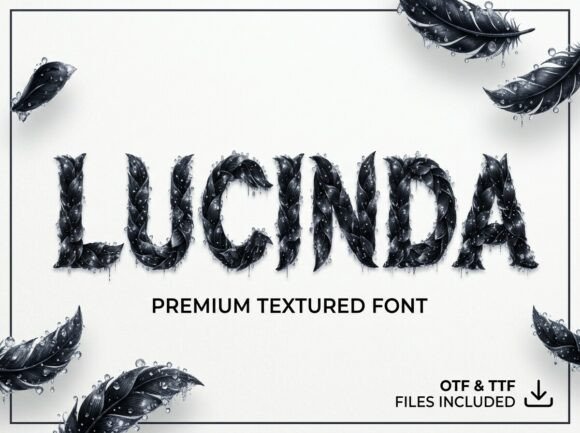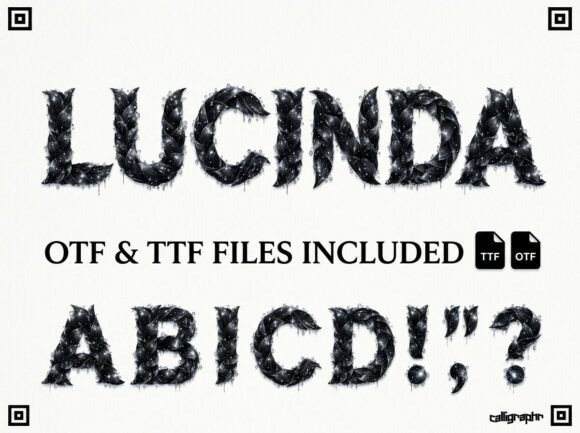
Introduction to Lucinda Font
As a designer, there’s nothing quite like the thrill of bringing a creative project to life. You’ve poured your heart and soul into every detail, from the color palette to the typography. And then, you stumble upon the perfect font – one that elevates your design from ordinary to extraordinary. For many, that font is the Lucinda Font, a stunning decorative display font that demands attention and sets the tone for a high-quality design.
The Lucinda Font is a valuable resource for designers who crave something unique and eye-catching. Its artistic elements and strong visual personality make it perfect for bold headlines, artistic logos, and creative packaging. Whether you’re working on a personal project or a client’s design, this font is sure to make a lasting impression.
Key Features of Lucinda Font
- High-quality design resource for various creative projects
- Unique characteristics include elegant and refined letterforms, making it ideal for corporate and luxury branding
Honest Review: Lucinda Font
I’ve had the pleasure of working with the Lucinda Font on several creative projects, and I must say it’s a high-quality design resource that’s sure to elevate any design. ✨ One of the standout features of this font is its elegant, classic look that’s perfect for formal designs. It’s also highly versatile, making it suitable for a wide range of applications, from business cards to wedding invitations.
- Elegant, classic design
- Highly versatile
- Limitations:
- Not suitable for modern or trendy designs
- May not be as readable on small screens
Overall, I’m thoroughly impressed with the Lucinda Font. While it may not be the best fit for every design, it’s a solid choice for designers looking for a high-quality, classic font. With its elegant design, transparent background, and free download, it’s a valuable addition to any design library.
Tips for Getting the Most Out of Lucinda Font
Lucinda Font is a versatile design resource that can be used for a variety of creative projects. To get the most out of it, experiment with different font styles and sizes, and adjust the transparency to suit your design’s needs.
Lucinda Font is commonly used in designs that require a high-quality, transparent background. It’s a great design resource for creating presentations, posters, and other visual materials that require a professional look.